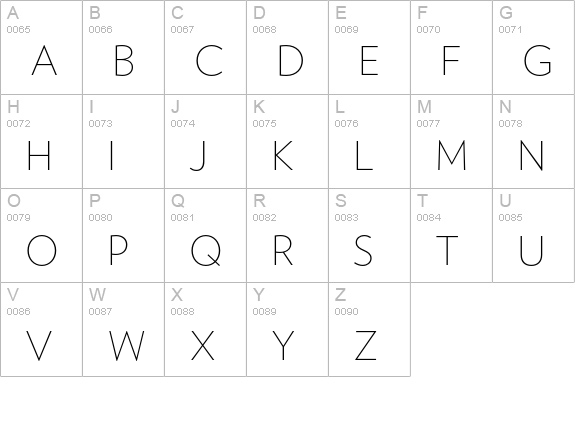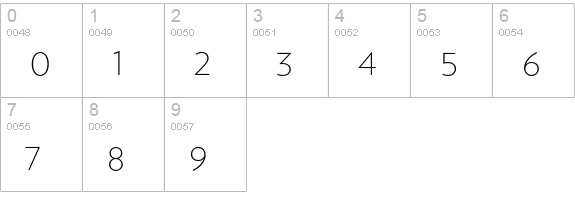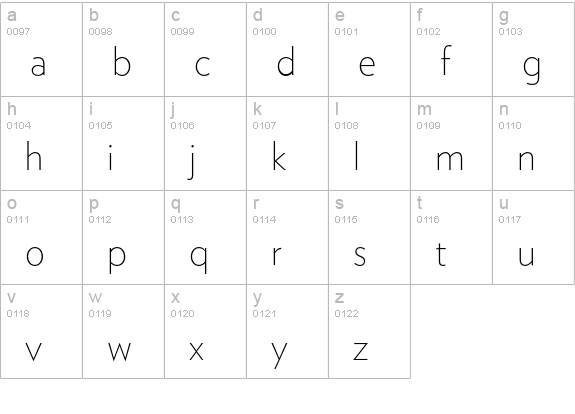
Verlag XLight font is a modern and elegant typeface that exudes sophistication and clarity. Its sleek design and refined lines make it perfect for a wide range of projects, from branding to editorial design. The Verlag XLight font strikes the perfect balance between professionalism and creativity, making it a versatile choice for any designer. One of the best things about the Verlag XLight font is that it is available for free download at FontsMarket.com. This means that you can easily access this high-quality font without any cost, making it an invaluable resource for your design projects. Whether you are working on a personal project or a professional assignment, the Verlag XLight font is sure to elevate the overall look and feel of your work. With its clean and minimalist aesthetic, the Verlag XLight font is a timeless choice that will never go out of style. Its versatility and ease of use make it a must-have font for any designer looking to make a statement with their typography. Download the Verlag XLight font today and take your designs to the next level!